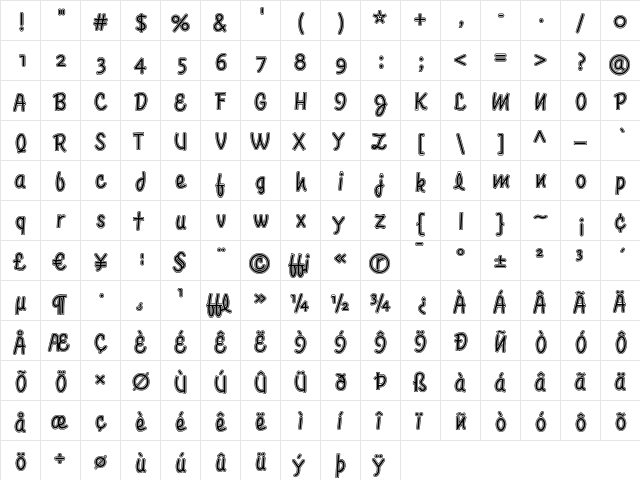
ElliottsVenusDioxideOutlined Regular Font Preview
ElliottsVenusDioxideOutlined Regular
ElliottsVenusDioxideOutlined Regular Font Details
Design Context for ElliottsVenusDioxideOutlined Typeface
ElliottsVenusDioxideOutlined brings ornamental detail and strong personality to headlines and identities, where visual impact matters more than quiet functionality.
Font Pairing: Pair with a clean neutral sans-serif for body copy to let ElliottsVenusDioxideOutlined's character lead without overwhelming the composition.
Pro Tip: Treat ElliottsVenusDioxideOutlined as the centrepiece of your typographic hierarchy. One strong heading set in a decorative face can carry an entire layout.